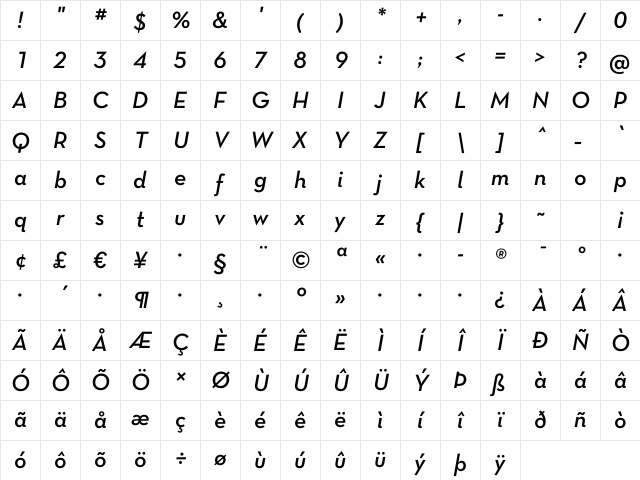
Neutra Text TF Light Alt Demi Italic
Style: Demi Italic
Designer: Christian Schwartz
Neutra Text TF Light Alt Family
Design Context for Neutra Text TF Light Alt
Neutra Text TF Light Alt is a composed and adaptable typeface that performs quietly and consistently across a wide range of design contexts. The slanted form adds forward momentum and visual energy. Its slender proportions lend an understated elegance to any composition.